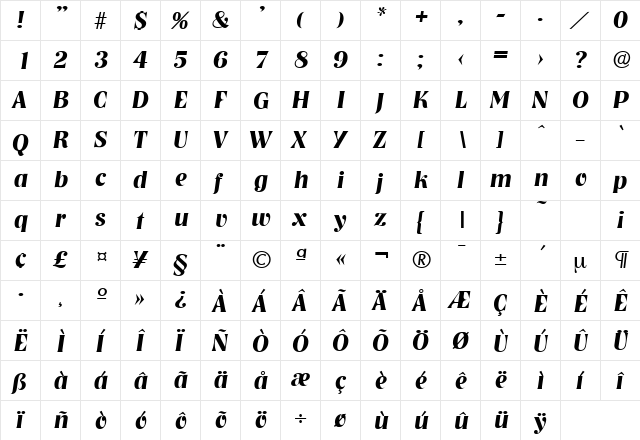
Nashville-Serial BoldItalic Font Preview
Nashville-Serial BoldItalic
Nashville-Serial BoldItalic Font Details
Design Context for Nashville-Serial Typeface
Nashville-Serial takes a measured approach to typography — its balanced proportions and neutral character make it a reliable workhorse for both digital and print work. Its italic angle brings a sense of urgency and motion to the letterforms. Its bold stroke weight gives it real presence on the page.
Pro Tip: Use Nashville-Serial for emphasis, pull quotes, and subheadings where its slanted energy can add rhythm to the layout.